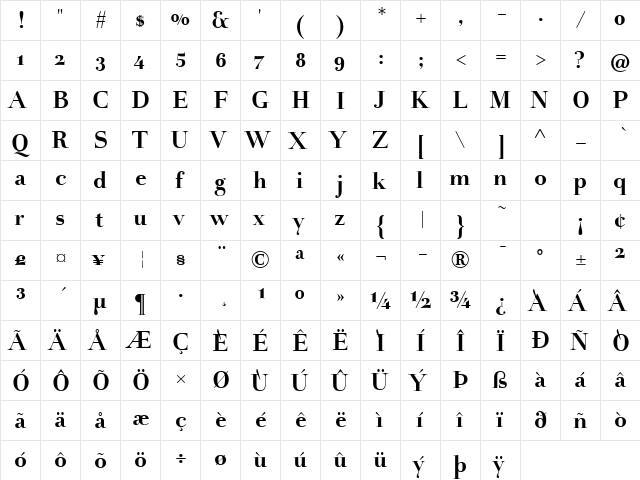
Holmen-Bold Regular
| Foundry | FSI FontShop International GmbH |
| Designer | Per Jorgensen |
Design Context for Holmen-Bold Typeface
Holmen-Bold offers clean, dependable letterforms without strong stylistic allegiance, making it a practical choice for designers who need flexibility. The heavy weight commands attention and anchors typographic hierarchies.